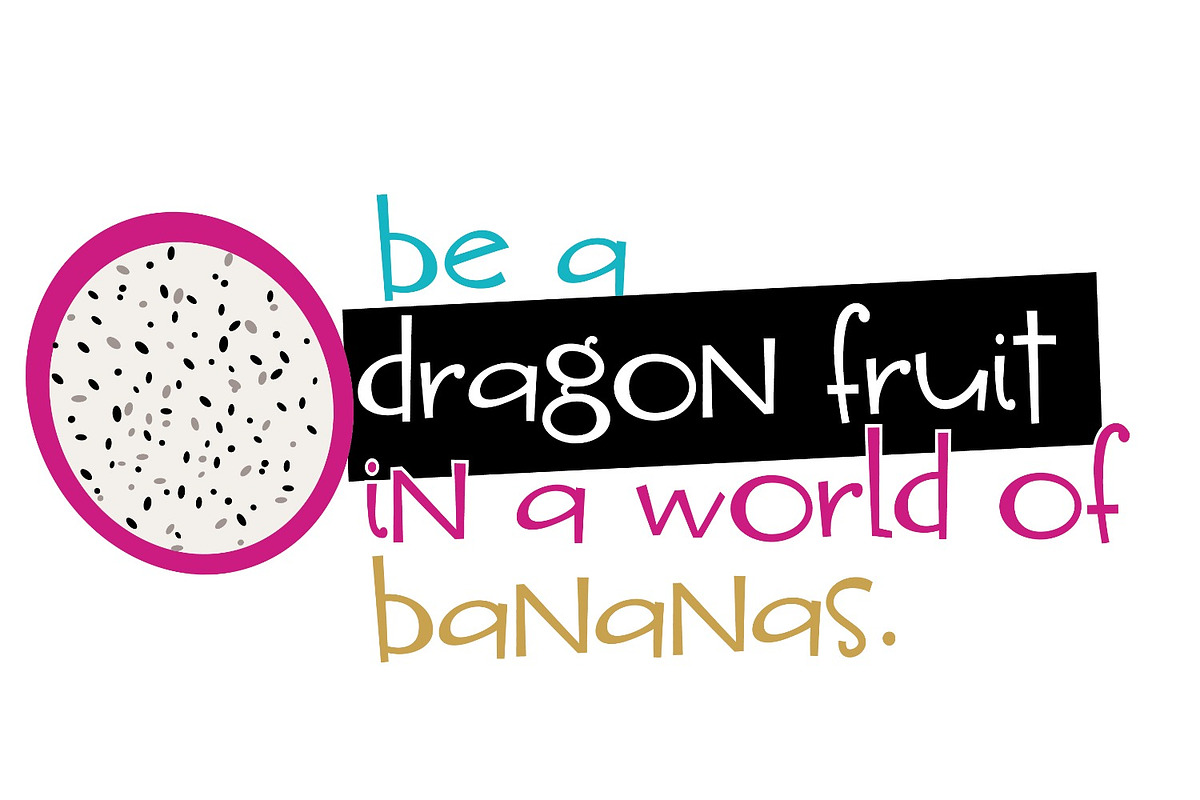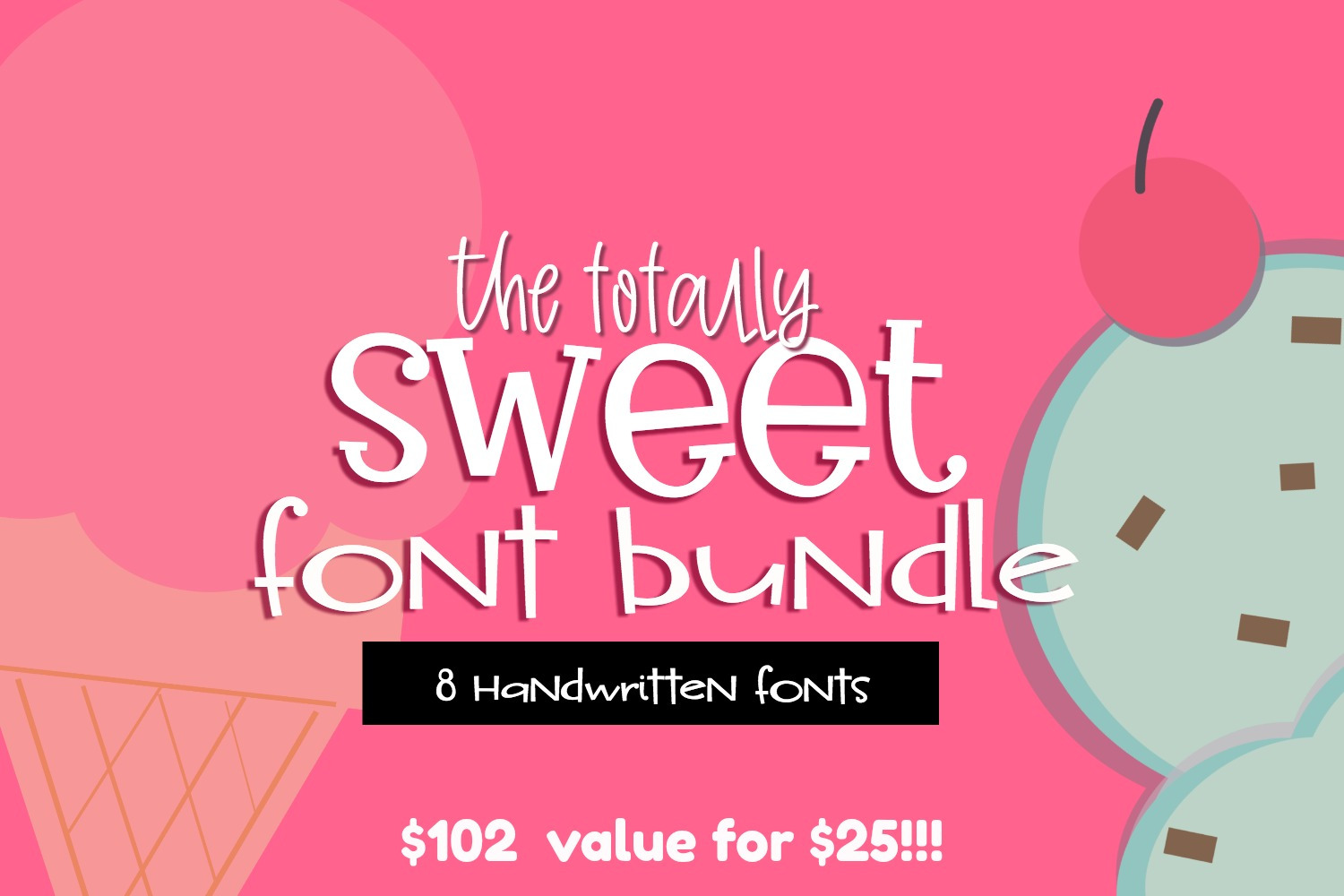
Totally Sweet Font Bundle
This Totally Sweet Font Bundle includes 8 handwritten fonts that are perfect for your sweetest, youthfully feminine designs! I've taken the time with each of these fonts to make sure they are as smooth as possible for optimal cutting machine performance, making these fonts a must-have for Cricut and Silhouette crafters!